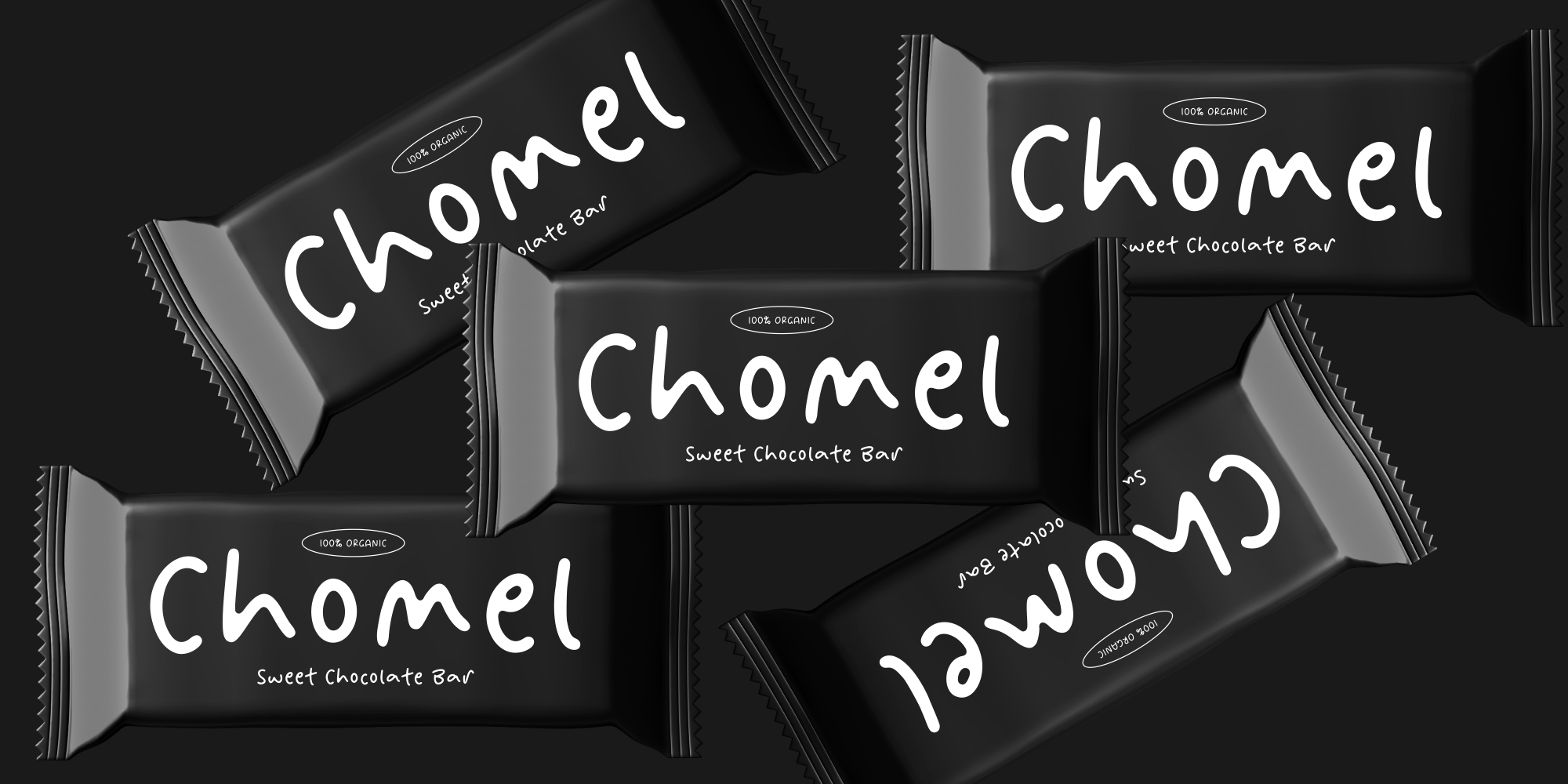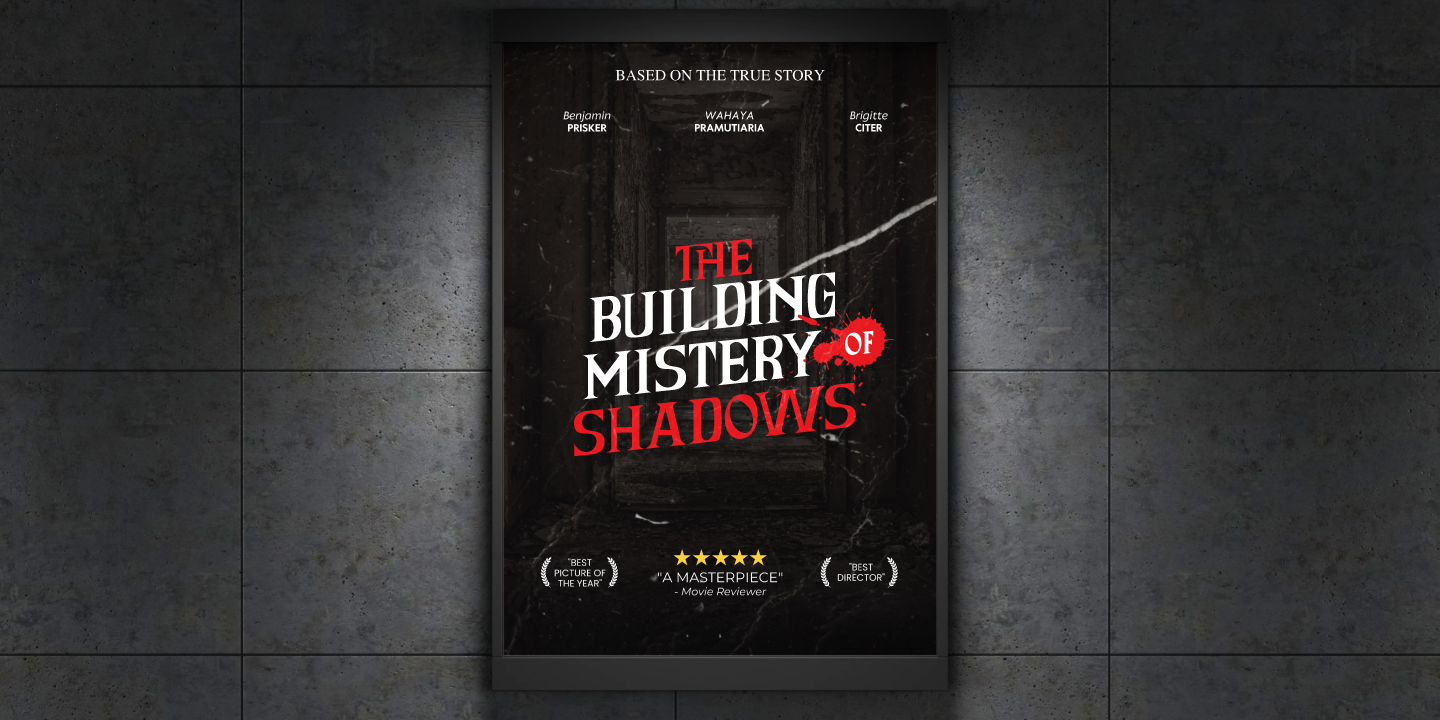
NoteStar Display is a signature creation of the Anxietype Foundry that seamlessly blends imagination and typography. Sculpted with a handcrafted touch, it breathes life into a spectrum of applications, from crafting and branding to logo creation and package design. Embrace the versatility and personality of Notestar with each stroke and letter. Start creating today! 3 fonts for $24 $21.60 | |
Stellaviva is a serif available in six weight styles, ranging from extra light to bold. Its design features a combination of thin curves and straight stems, creating high contrast and adding personality.
It also includes a wide range of ligatures, providing more options for your design needs. With its diverse range of styles, Stellaviva is suitable for various design projects, including luxury applications such as hotel logos, restaurant menus, posters, wedding invitations, as well as fashion-related designs. 6 fonts for $65 | |
Grosia is an enchantingly feminine serif font, exquisitely crafted to add a dash of romance and charm. Perfect for many applications, from digital designs and packaging to handmade crafts and delightful greeting cards.
Its allure captivates and enchants, swiftly becoming an indispensable element in your creative tool kit. Grosia will make a memorable mark regardless of the occasion. Its appealing visuals enhance your work, promising to leave a distinct impression. 2 fonts for $17 | |
Ensatulogi is a bone-chilling horror display font designed to instill fear and mystery in any project. With its sharp, pointed edges and jagged letterforms, this typeface captures the essence of darkness, making it ideal for horror movie titles, eerie book covers, haunted house posters, Halloween-themed designs, and dark branding. Inspired by classic horror aesthetics and gothic typography, Ensatulogi's razor-sharp details and menacing strokes create an intense and unsettling visual experience. Each letter feels like a sinister whisper from the shadows, perfect for amplifying the suspense and thrill in your designs. 1 font for $23 | |
Grimlins is a mesmerizing display font that blends elegance with a touch of luxury. Its refined serif structure, paired with graceful swashes, evokes an enchanting, classy aesthetic perfect for luxury branding, editorial design, invitations, and packaging. Whether crafting a romantic theme or an ethereal fairytale-inspired project, Grimlins brings an irresistible charm that elevates any design. 1 font for $19 | |